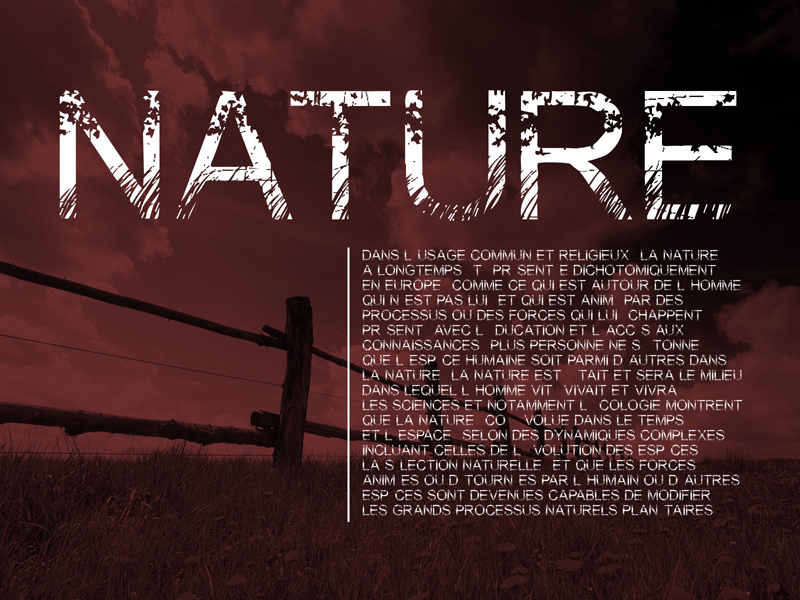
Nature by CloutierFontes is a free eroded display font with broad, assertive capitals and a dense pattern of chipped edges, scratches, and missing patches that cuts deeply into otherwise clean sans serif shapes. The damage is coarse, scattered, and unmistakably physical.
As a ready-made weathered surface, it can turn a concert poster or streetwear graphic into something that resembles distressed print with years of surface wear, and it also suits rugged beverage packaging. That battered industrial quality also belongs in action-game titles and survival-themed event graphics, where the lettering can echo scorched metal, torn paper, or heavily worn signage.